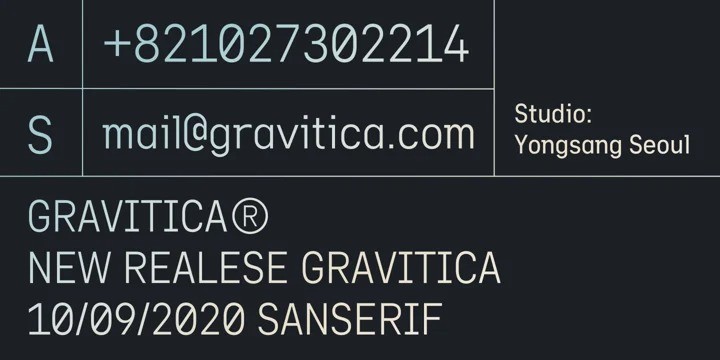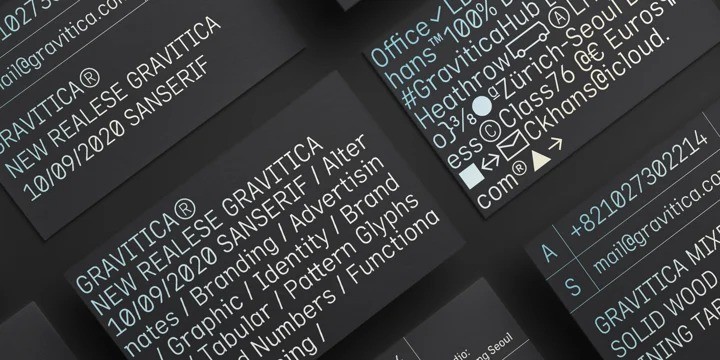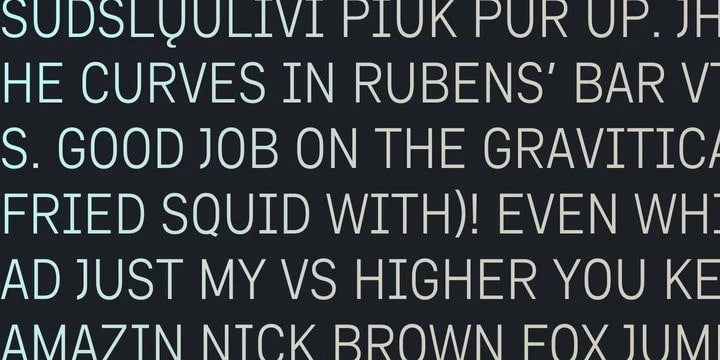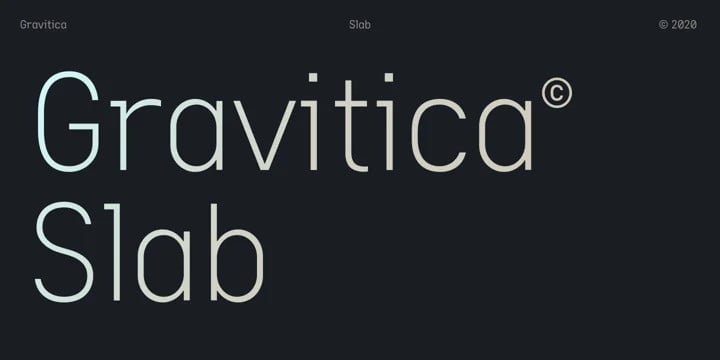
Gravitica Slab Font is a timeless serif typeface with bespoke Swiss design with the finest level of aestheticism. Handcrafted and designed with powerful opentype features in mind, each weight includes extended language support including Western European & Central European sets. It comes in 6 weights, 12 uprights and its matching italics, so you can use them to your heart’s content. Designed with powerful opentype features in mind. Each weight includes extended language support, fractions, tabular figures, arrows, ligatures, icons and patterned.
Gravitica Slab Font family consists of 12 styles (12 weights, 12 Italics), in each of which there are more than 940+ glyphs. In the typeface, each weight includes extended language support, fractions, tabular figures, arrows, ligatures and more. Perfectly suited for graphic design and any display use. It could easily work for web, signage, corporate as well as for editorial design. documents and folders, mobile interface.